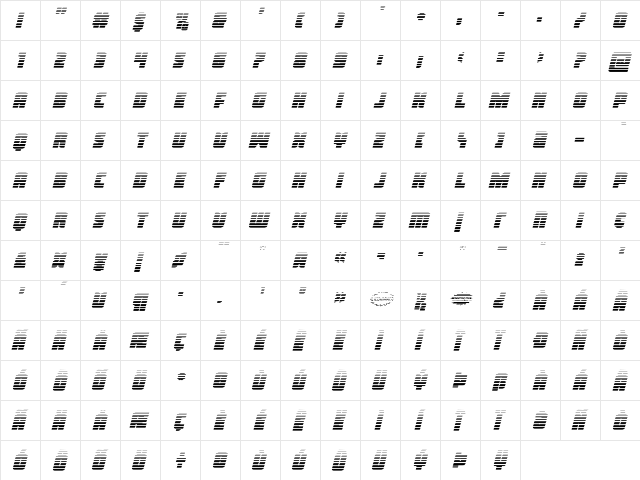
Inspector General Gradient Ita Regular
Design Context for Inspector General Gradient Ita Typeface
Inspector General Gradient Ita is a composed and adaptable typeface that performs quietly and consistently across a wide range of design contexts. Its italic angle brings a sense of urgency and motion to the letterforms.